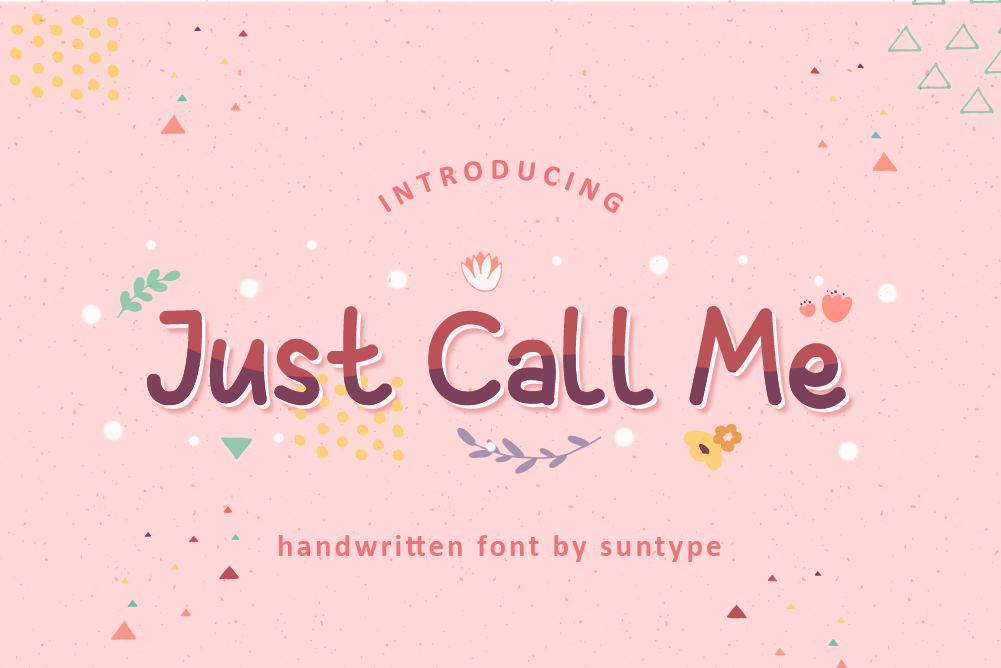
Just Call Me | Handwritten Font
About the Product Just Call Me is a cute and simple handwritten font and would look great on a variety of design ideas. This font is suitable for use in designs with children’s themes, quotes, and can be applied to children’s book covers, t-shirts, etc. Thanks for checking out my shop, and feel free to get in touch! suntype07@gmail.com